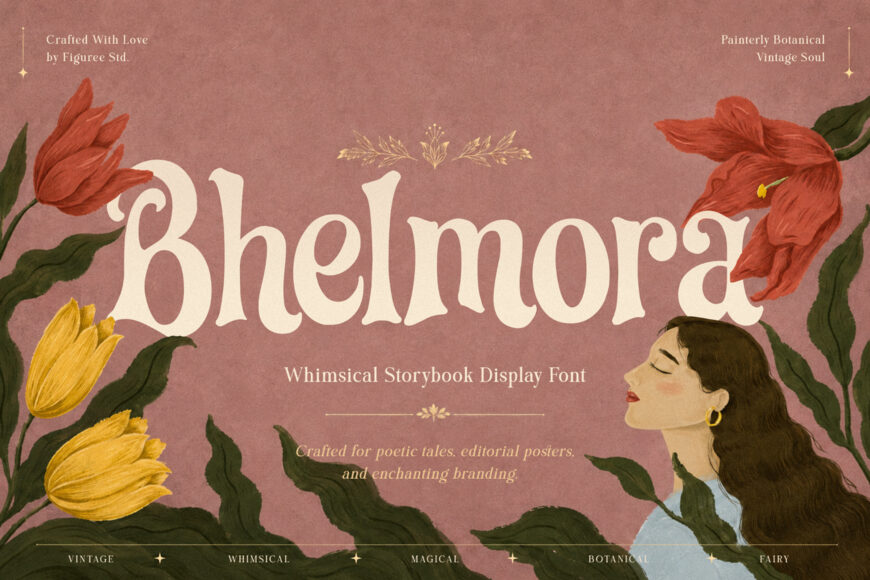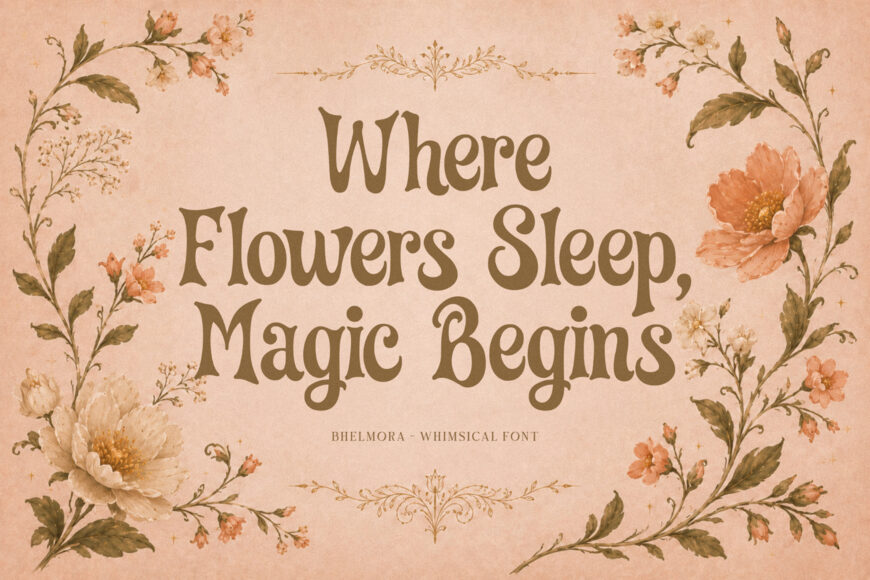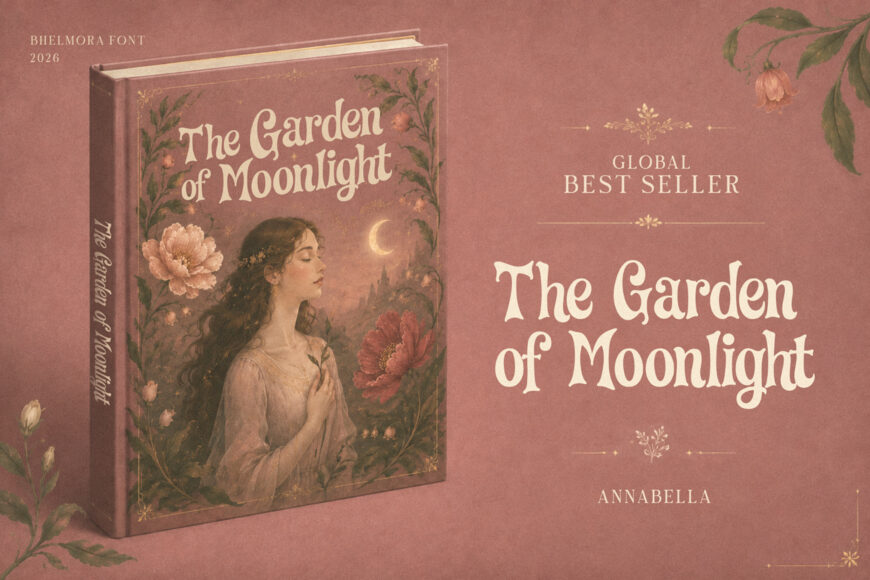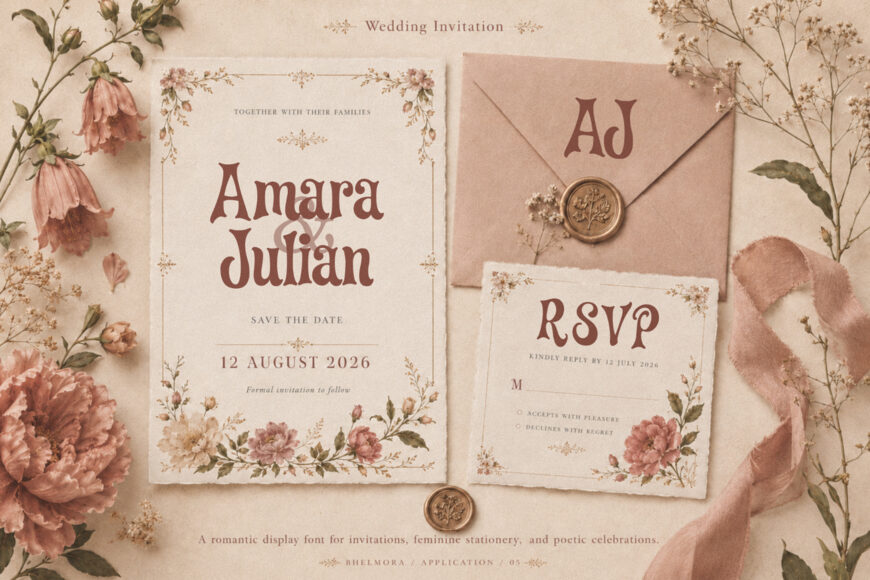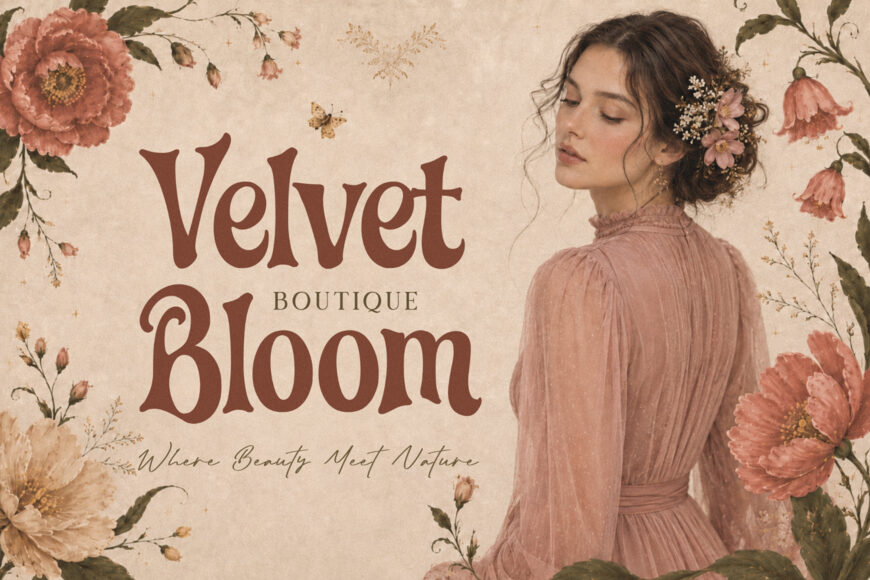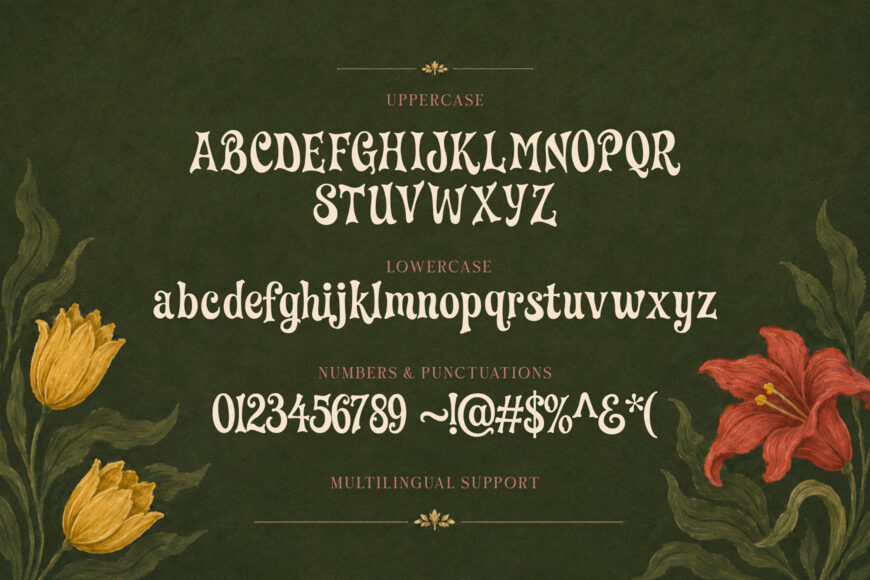
Bhelmora whimsical display font is designed for creatives who want typography with personality, movement, and a lighthearted visual mood. Whether you are building a cheerful brand identity, designing product packaging, creating poster artwork, or preparing social media graphics, Bhelmora gives your words a more memorable visual presence.
Bhelmora is especially useful for headline-focused layouts. Use it for titles, logo text, short phrases, product names, sticker designs, greeting cards, quote graphics, and other display typography where the lettering becomes part of the visual story.